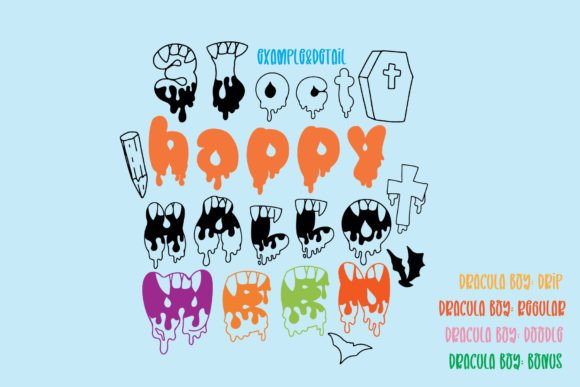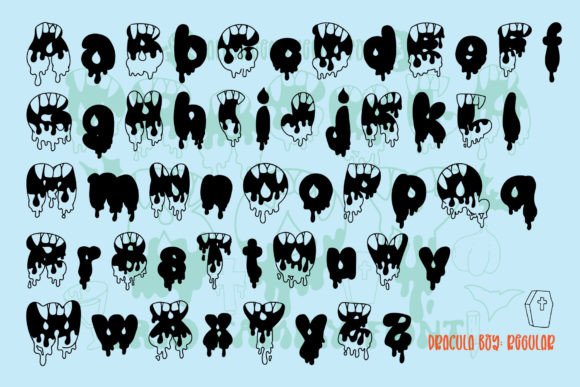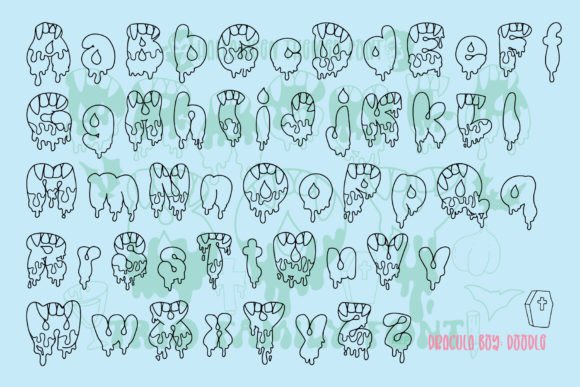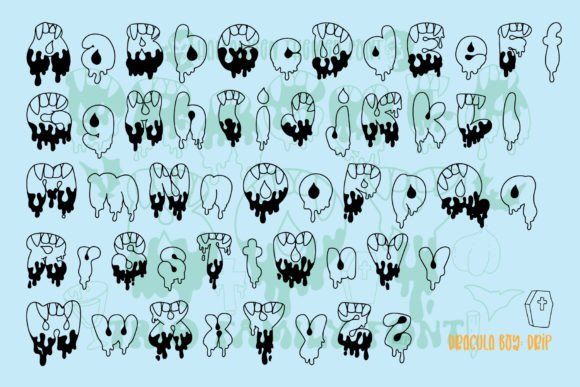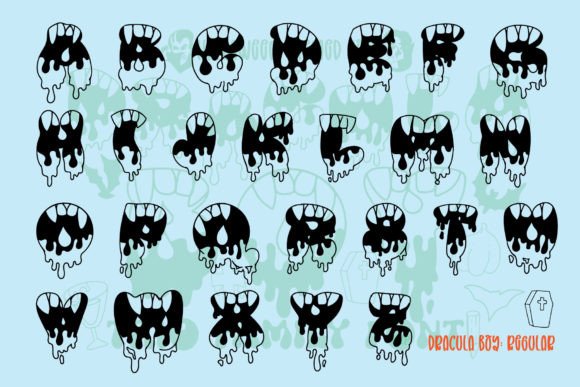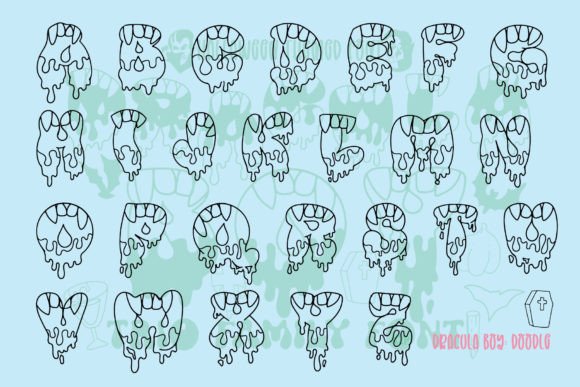
Dracula Boy Font: The Spookiest Decorative Font for Halloween
Are you looking for a font that will add a spooky touch to your Halloween-related projects? Look no further than the Dracula Boy Font! This thick-lettered and spooky decorative font is perfect for any crafty idea you have, and its versatility knows no bounds. In this article, we’ll dive into the features and benefits of the Dracula Boy Font and explore how you can use it to take your designs to the next level.
What is Dracula Boy Font?
Dracula Boy Font is a unique and eye-catching decorative font that’s specifically designed to evoke the spooky spirit of Halloween. Its thick, bold letters are perfect for creating eye-catching headings, titles, and text that will grab attention and send shivers down the spine. Whether you’re working on a DIY craft project, designing invitations, or creating social media graphics, this font is sure to add a touch of eerie elegance to your work.
Key Features of Dracula Boy Font
- Thick-Lettered and Spooky Design: The Dracula Boy Font features thick, bold letters that are perfect for creating spooky and eye-catching text.
- Perfect for Halloween-Related Projects: Whether you’re working on a Halloween-themed craft project, designing invitations, or creating social media graphics, this font is perfect for adding a spooky touch.
- Limited Only by Your Imagination: The Dracula Boy Font is incredibly versatile, and its uses are limited only by your imagination. You can use it to create a wide range of designs, from spooky signs and invitations to creepy crafts and DIY projects.
Benefits of Using Dracula Boy Font
So why choose the Dracula Boy Font for your Halloween-related projects? Here are just a few benefits of using this amazing font:
- Easily Create Spooky Text: With the Dracula Boy Font, you can easily create spooky and eye-catching text that’s perfect for Halloween-related projects.
- Add a Professional Touch: The Dracula Boy Font is designed to look professional and polished, making it perfect for designers and crafters who want to add a touch of elegance to their work.
- Stand Out from the Crowd: With its unique and eye-catching design, the Dracula Boy Font is sure to help your designs stand out from the crowd and grab attention.